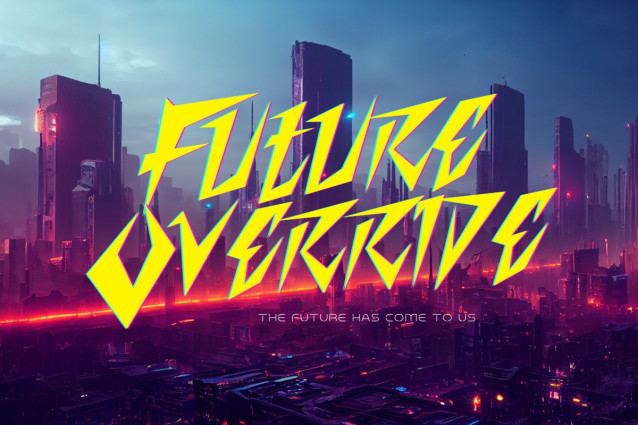
Nitro Break Font
Nitro Break Font is a cutting-edge display font that fuses cyber, sci-fi, tech, and urban aesthetics into one bold, futuristic design. With sharp angles, mechanical curves, and high-tech vibes, this font is perfect for digital interfaces, gaming titles, tech branding, urban apparel, and sci-fi posters. Nitro Brake captures the spirit of speed, innovation, and raw digital energy — built for creators who want their designs to stand out in the modern world.